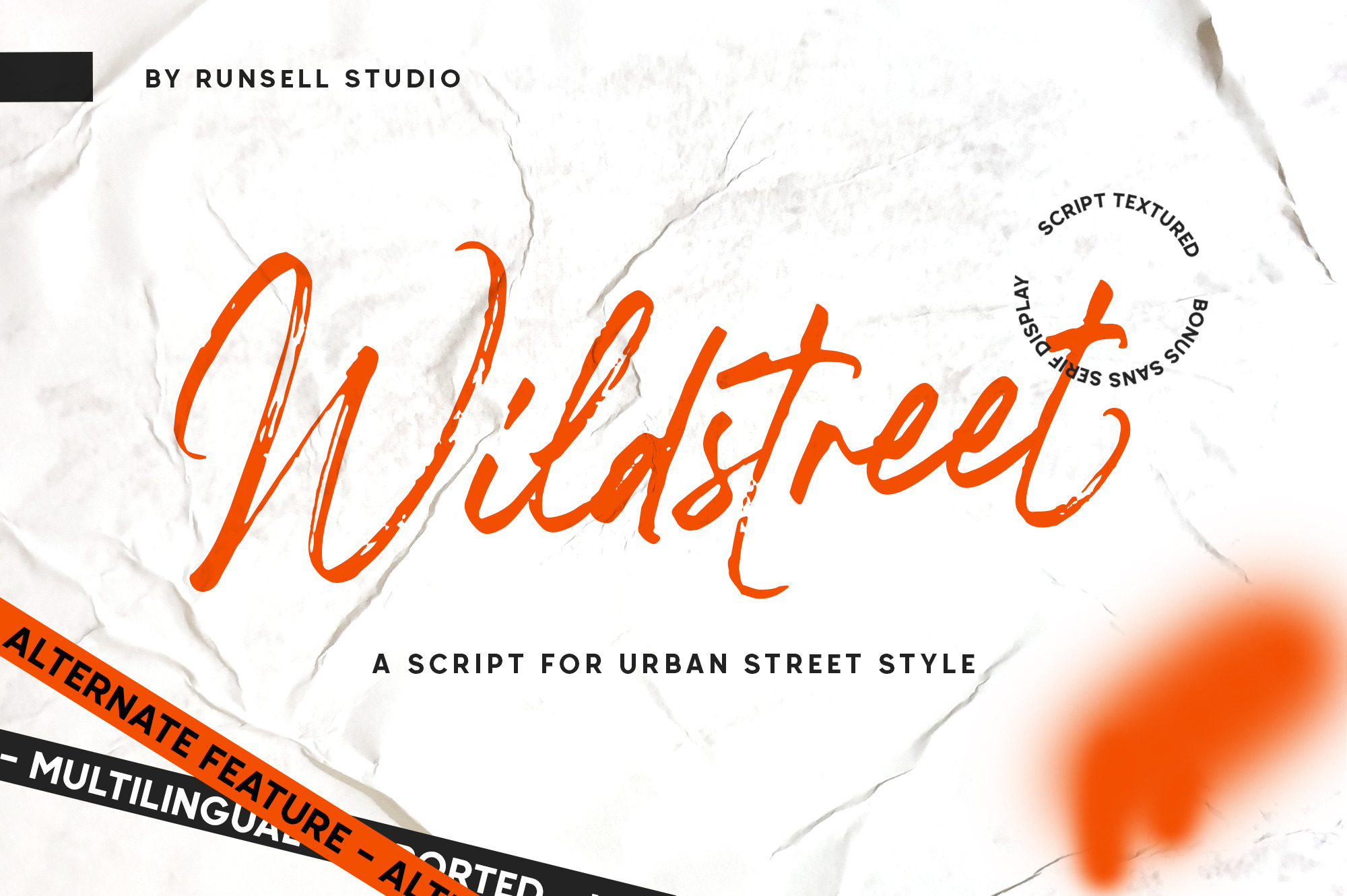
Wildstreet Script + Bonus Font
Wildstreet – Script Urban Street Style (BONUS RETROICA SANS SERIF DISPLAY)
A natural script textured brush, matching for urban street themes. The features uppercase, lowercase, numeral, punctuation & symbol, ligatures, alternates, multilingual support, PUA encoded (fully accessible without additional design software). Pairing good with sans serif display called Retroica Font. This font duo are great addition to your font library. It inspires a handcrafted aesthetic that pairs so well with san serif display. Get these 2 great product for the price of 1.